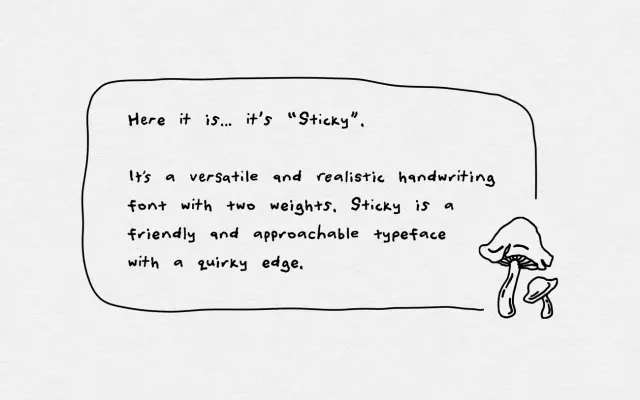
A two-weight casual handwriting font built with extensive alternates and ligatures to produce natural-feeling, varied text.
Designed to replicate the slight inconsistencies of real handwriting, Sticky comes in Regular and Bold weights with a broad glyph set including ligatures and alternates to avoid mechanical repetition. The letterforms are deliberately a little loose and irregular, lending projects a warm, approachable quality without tipping into formality. Suited to branding, packaging or editorial contexts where a friendly, hand-crafted feel is the goal.
Sticky is a casual handwriting script designed to replicate the irregularities of genuine handwritten text, with alternates and ligatures reinforcing its informal, personal character.